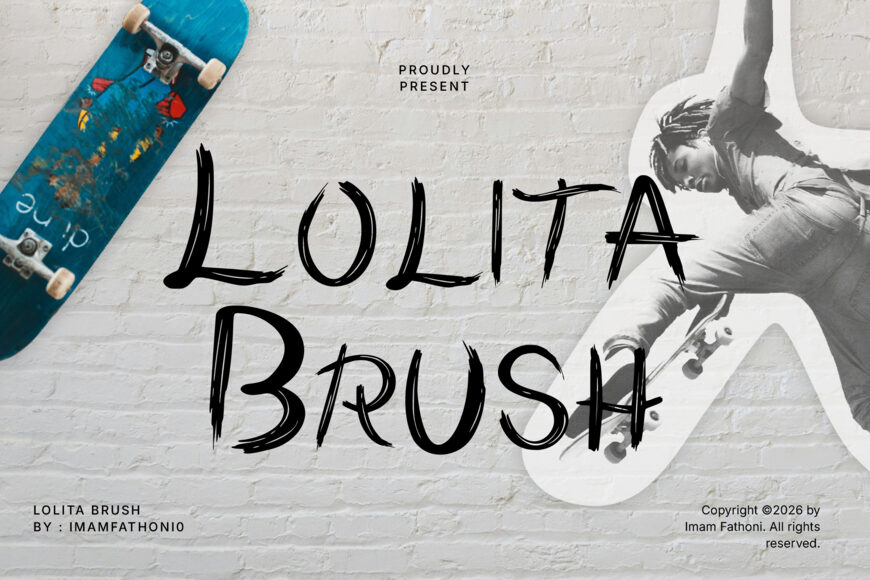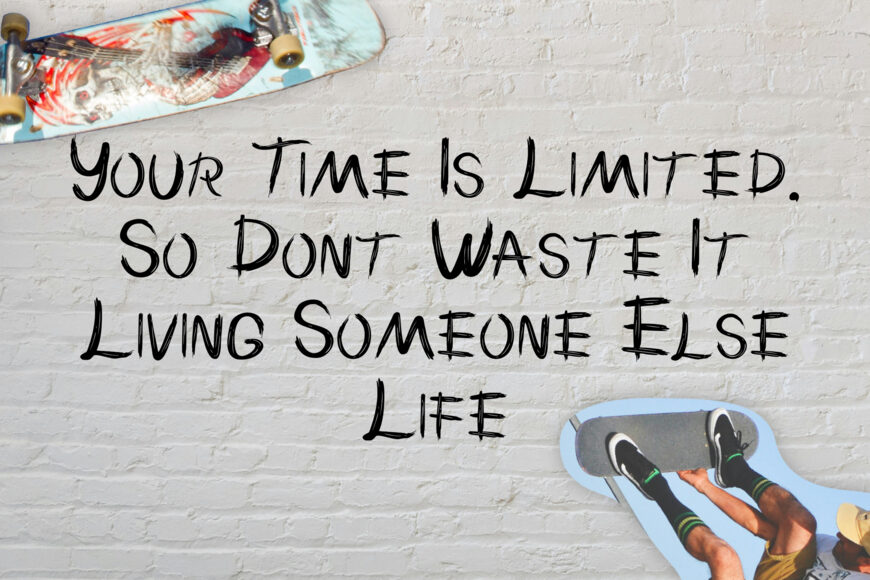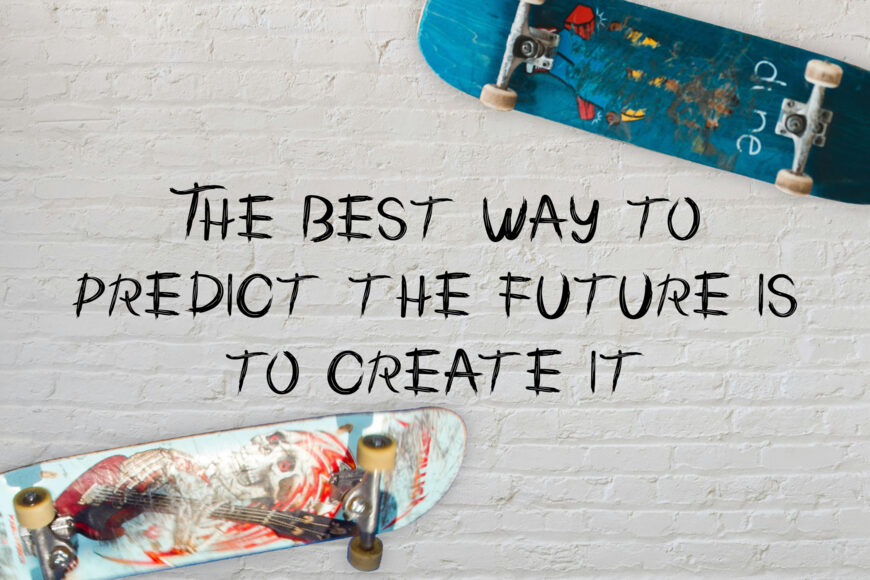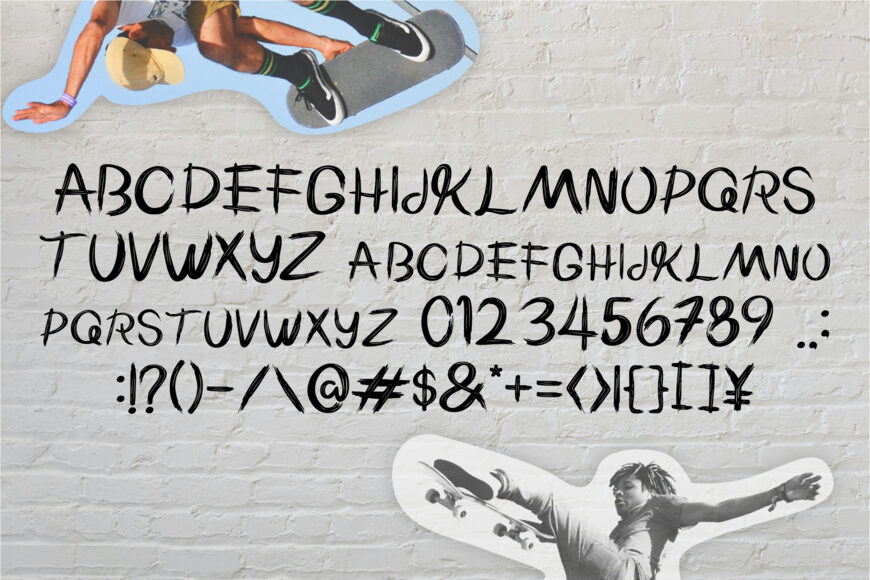
Inject raw urban energy, street art attitude, and expressive dry-brush texture into your graphic designs with Lolita Brush!
Designed as an edgy hand-painted display font, each character features expressive brush-stroke details, dynamic line work, and an authentic dry-ink feel. Its bold, rebellious silhouette gives action sports graphics, streetwear labels, and urban posters an unforgettable, energetic edge.